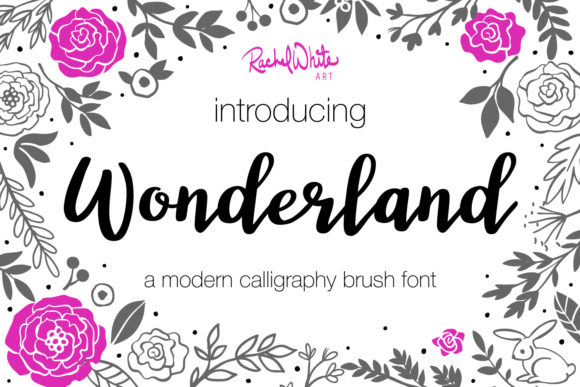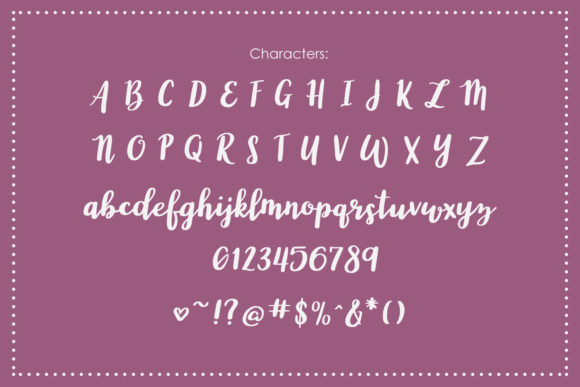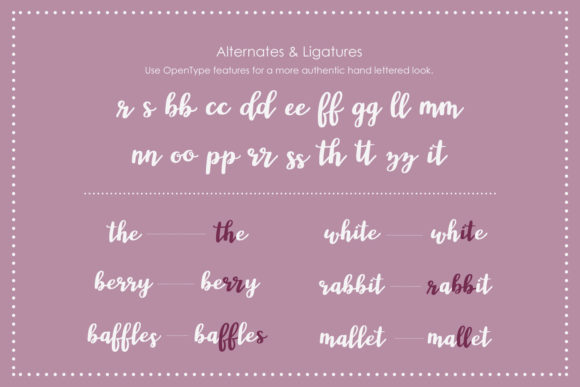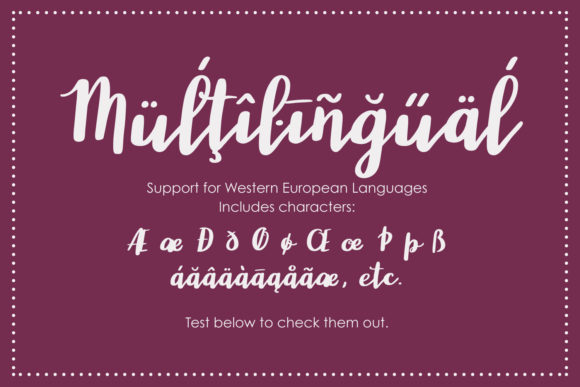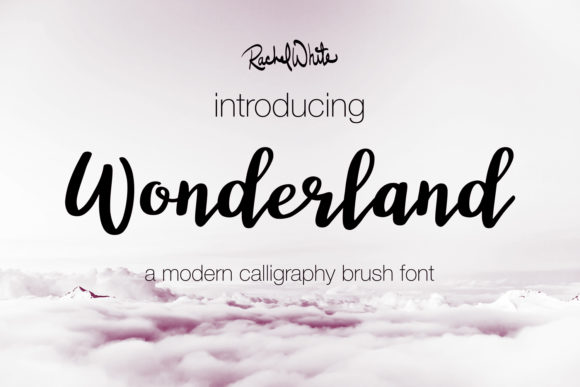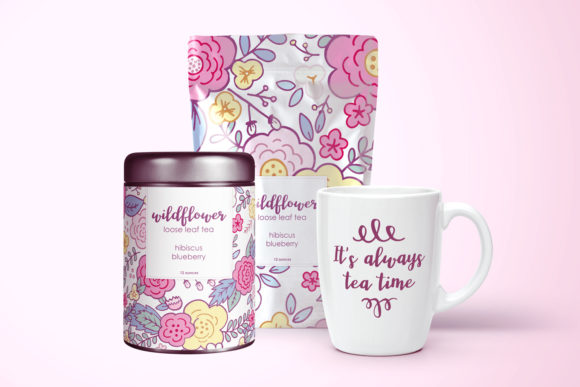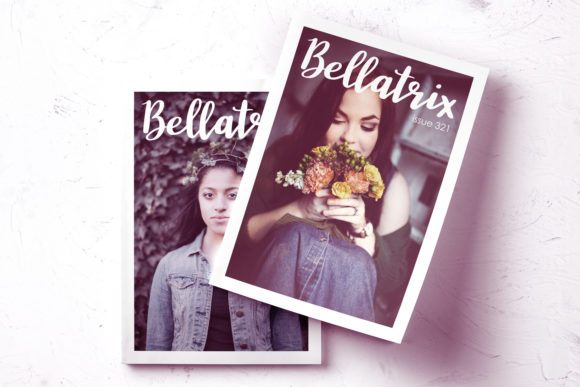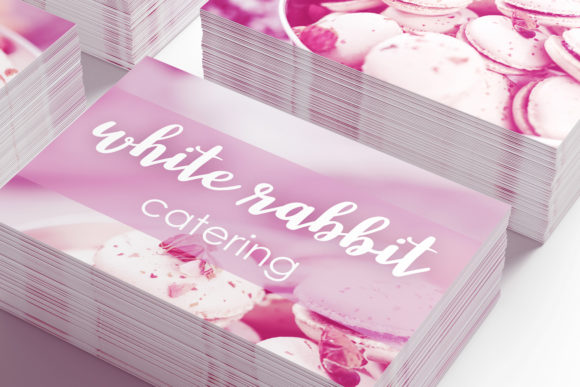
Wonderland Font
About Wonderland Font
Wonderland is an incredibly charming and playful script that feels unique and magical. This gorgeous rendering of classic calligraphy belongs in any crafting library!